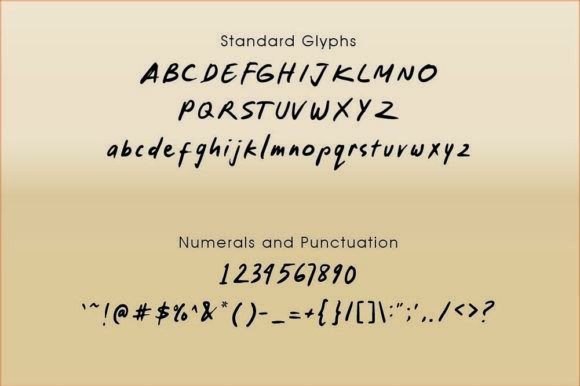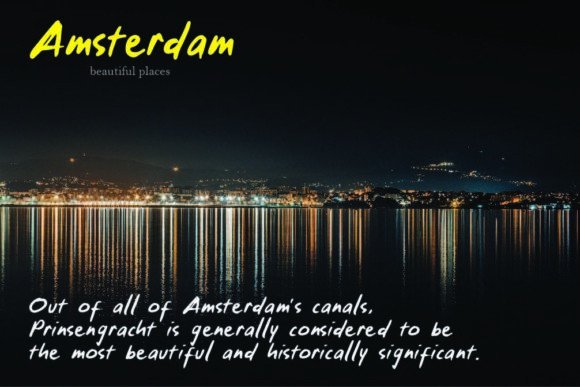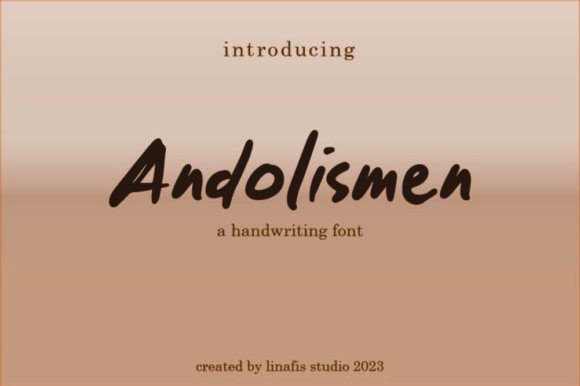
Introducing Andolismen Font: The Perfect Handwriting Font for Designers and Crafters
Are you a designer or crafter looking for a unique and elegant handwriting font to elevate your projects? Look no further than Andolismen Font! This versatile font is perfect for a wide range of applications, from branding and logo design to wedding designs, social media posts, and more.
What Makes Andolismen Font So Special?
Andolismen Font is a beautifully crafted handwriting font that adds a touch of elegance and sophistication to any project. Its unique and distinctive style makes it perfect for designers and crafters who want to add a personal touch to their work. Whether you’re creating a logo, designing a wedding invitation, or crafting a social media post, Andolismen Font is the perfect choice.
Andolismen Font is perfect for a wide range of projects, including:
- Branding projects: Create a unique and memorable brand identity with Andolismen Font.
- Logo design: Add a touch of elegance and sophistication to your logo with Andolismen Font.
- Wedding designs: Create beautiful wedding invitations, stationery, and more with Andolismen Font.
- Social media posts: Elevate your social media posts with Andolismen Font’s unique and stylish handwriting.
- Advertisements: Create eye-catching advertisements with Andolismen Font.
- Product packaging: Add a touch of elegance to your product packaging with Andolismen Font.
- Product designs: Create beautiful product designs with Andolismen Font.
- Labels: Create stylish labels with Andolismen Font.
- Photography: Add a touch of elegance to your photography with Andolismen Font’s beautiful handwriting.
- Watermark: Create a unique and stylish watermark with Andolismen Font.
- Invitation: Create beautiful invitations with Andolismen Font.
- Stationery: Create elegant stationery with Andolismen Font.
Why Choose Andolismen Font?
There are many reasons why designers and crafters choose Andolismen Font, including:
- Unique and elegant handwriting style
- Versatility – perfect for a wide range of projects
Andolismen Font is a beautiful and versatile handwriting font that’s perfect for designers and crafters. Its unique and elegant style makes it perfect for a wide range of projects, from branding and logo design to wedding designs and social media posts. With its easy installation process and compatibility with a range of design software, Andolismen Font is a great choice for anyone looking to add a touch of elegance and sophistication to their work.